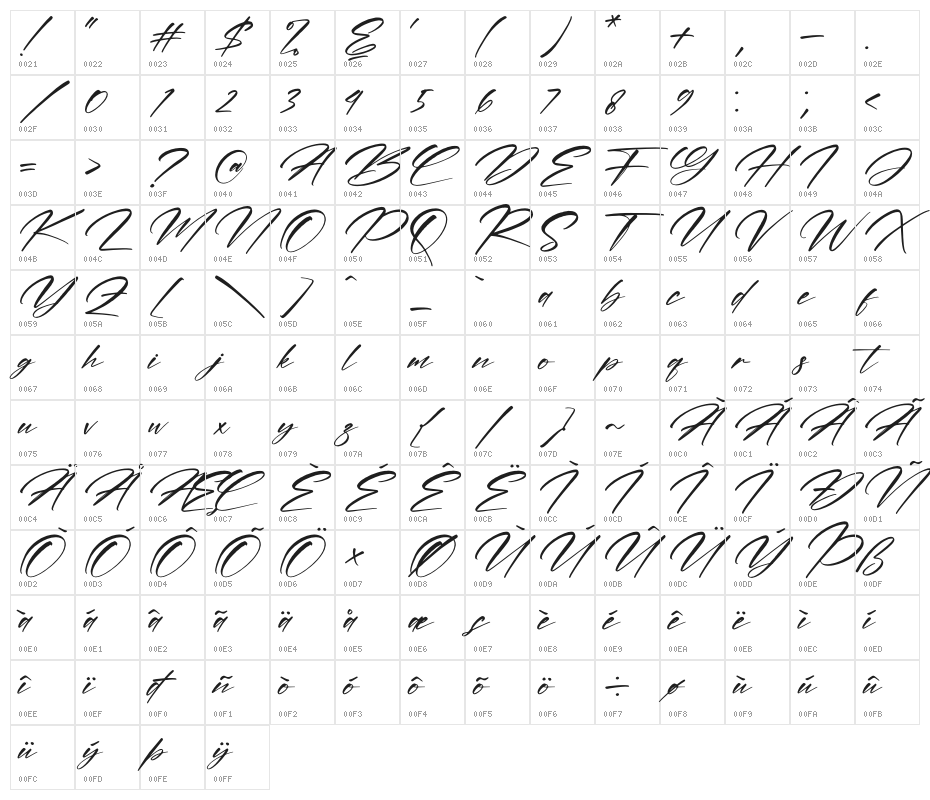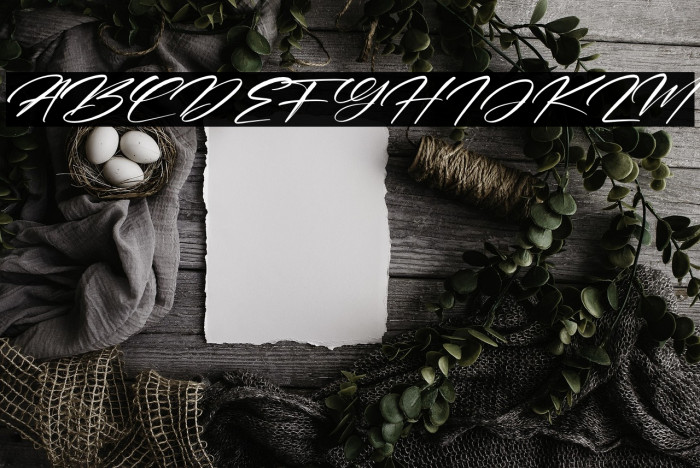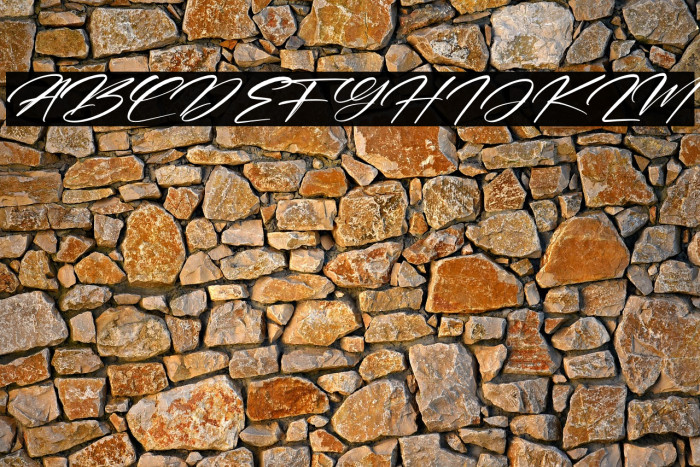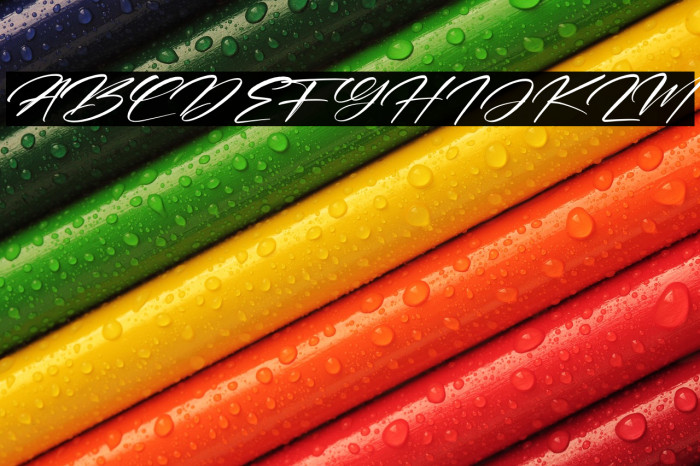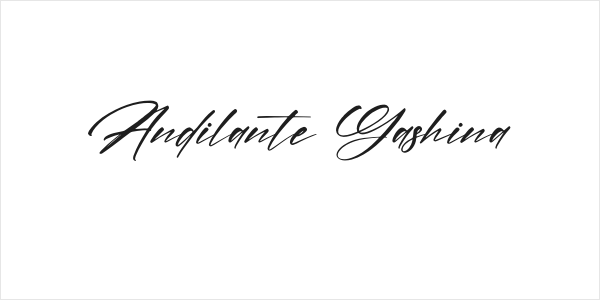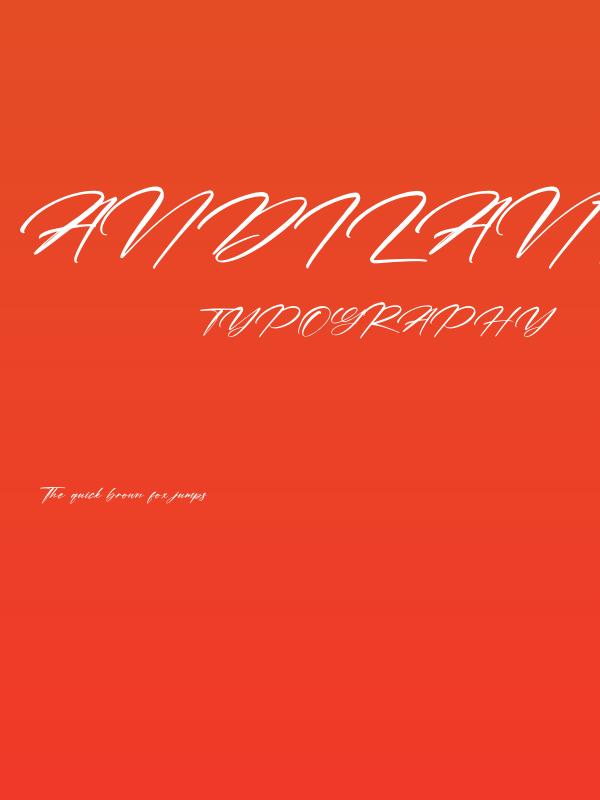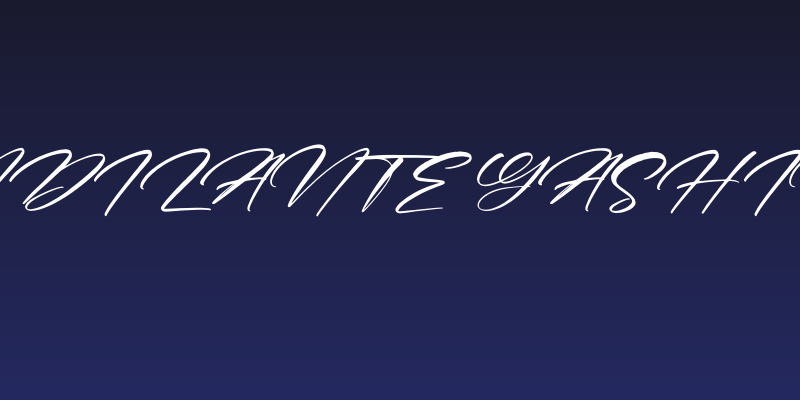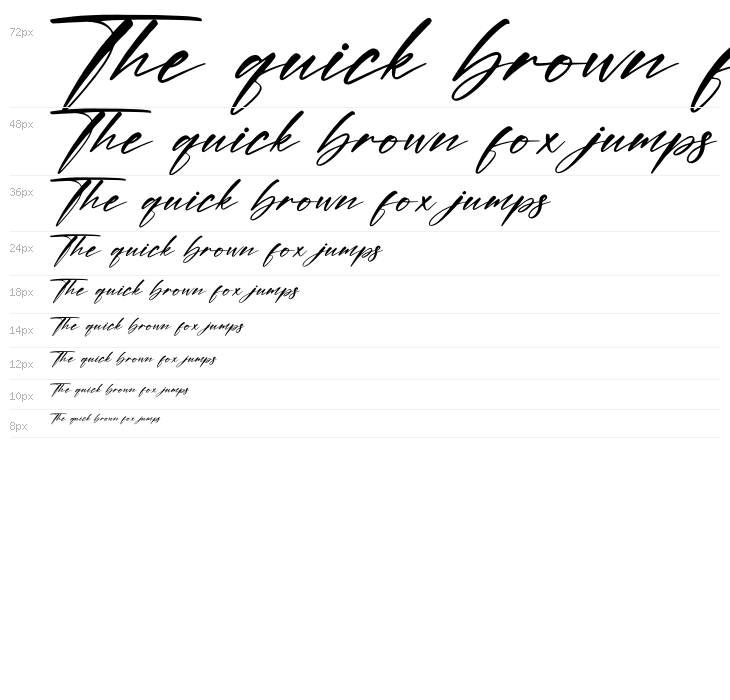
Andilante Gashina Font
Andilante Gashina Description
This font exudes a dynamic and flowing script style, characterized by its elegant and fluid strokes. The uppercase letters are slightly more elongated with a graceful slant, while the lowercase letters maintain a consistent rhythm, adding to the overall harmony of the design. The numerals and special characters are crafted with the same attention to detail, ensuring a cohesive look throughout. The font's natural hand-drawn appearance makes it ideal for projects that require a personal touch, such as invitations, greeting cards, or branding materials.